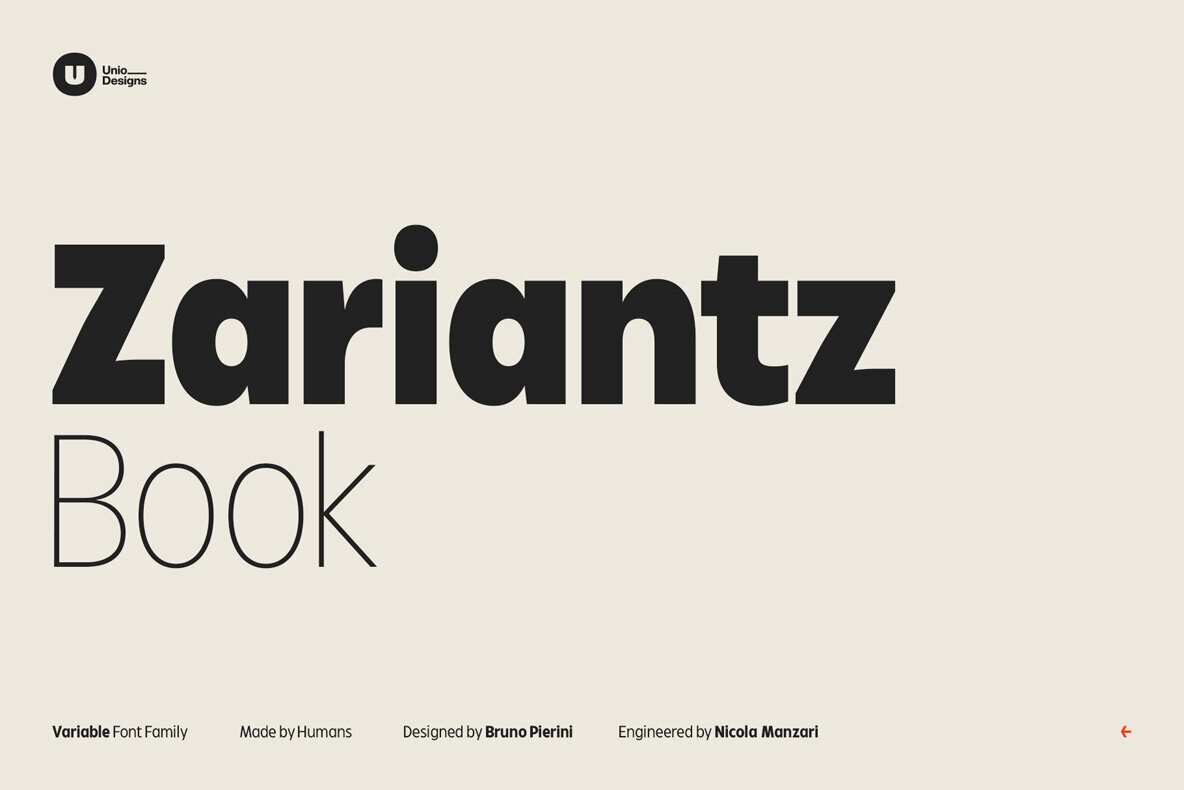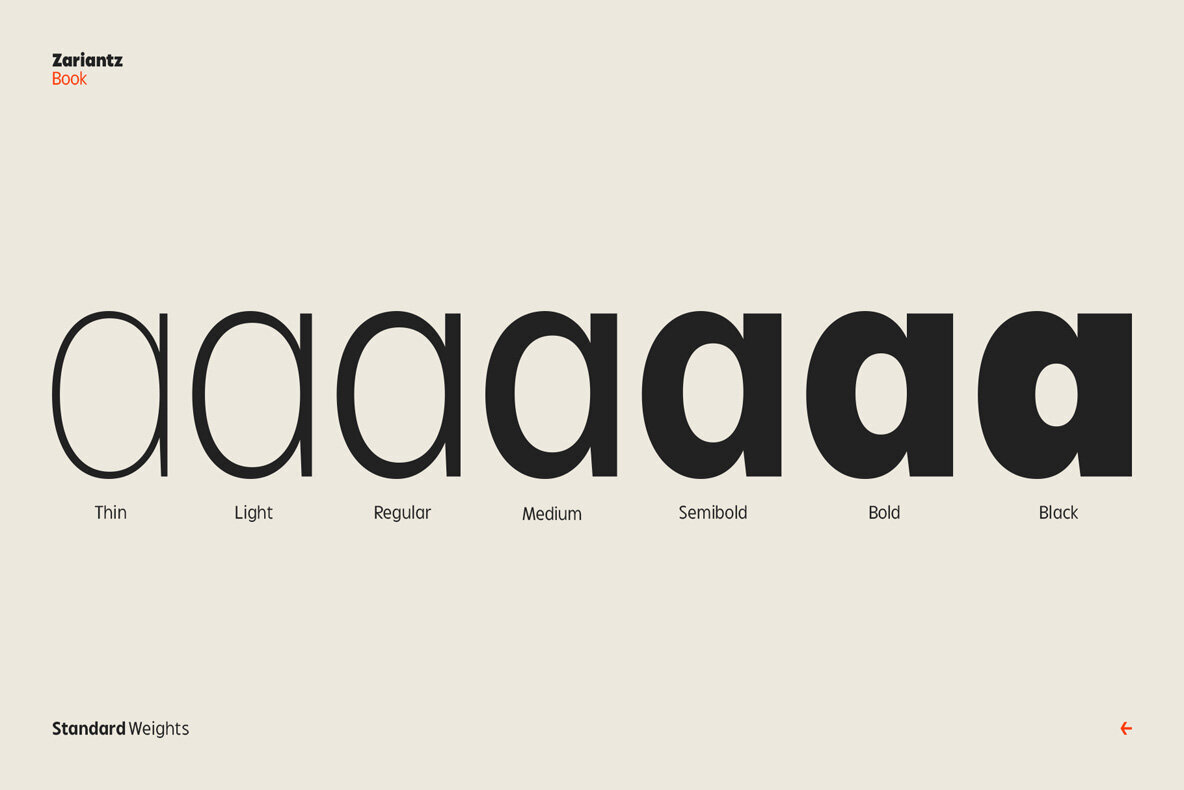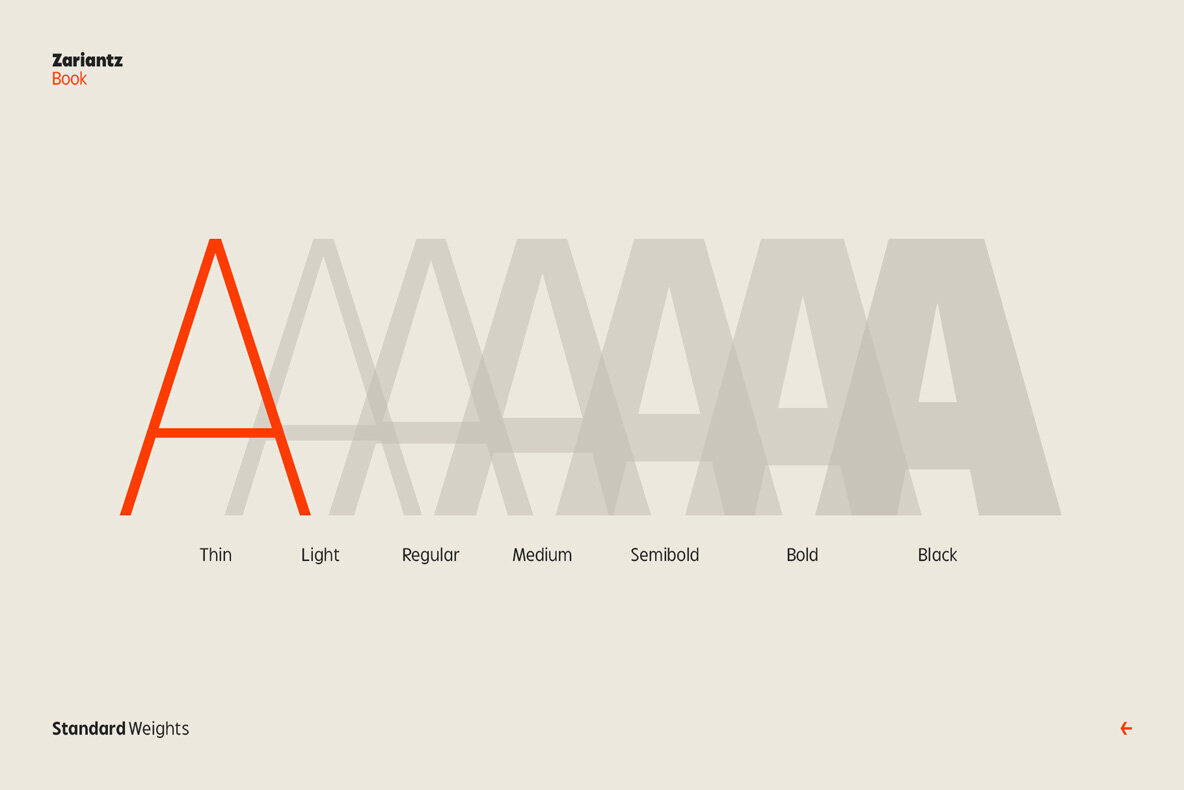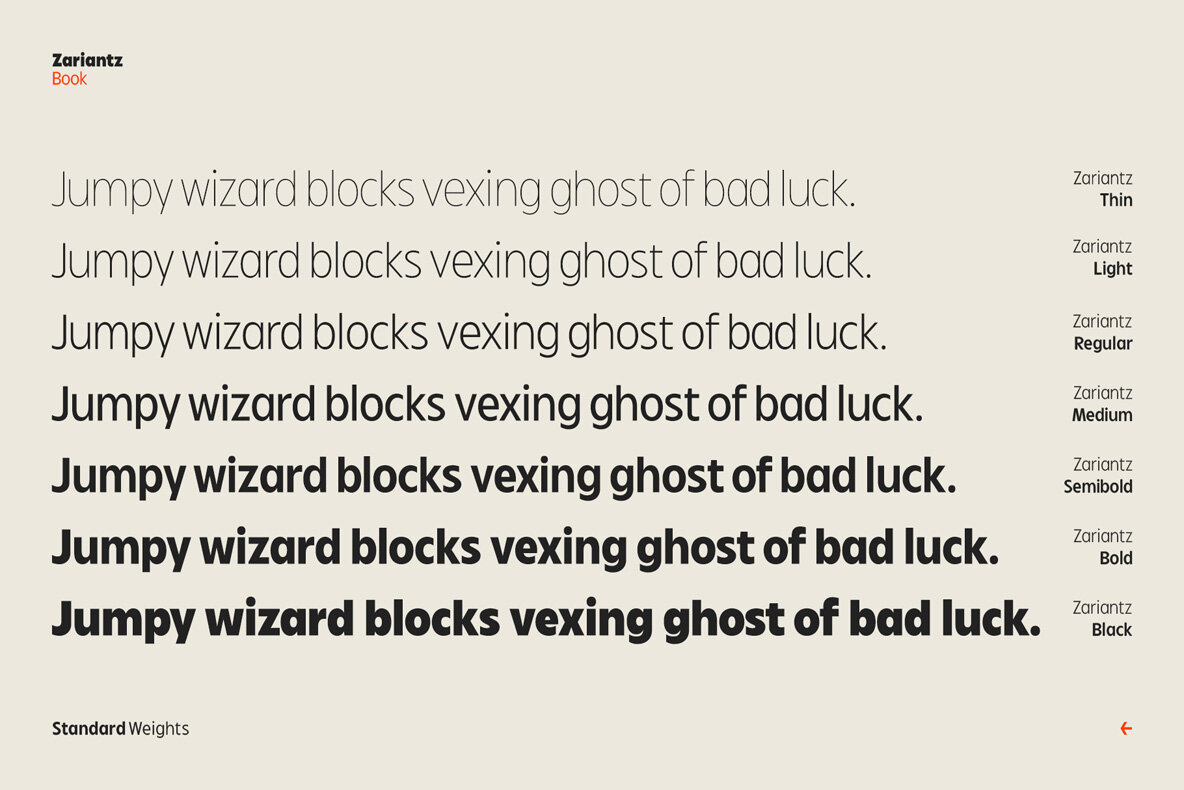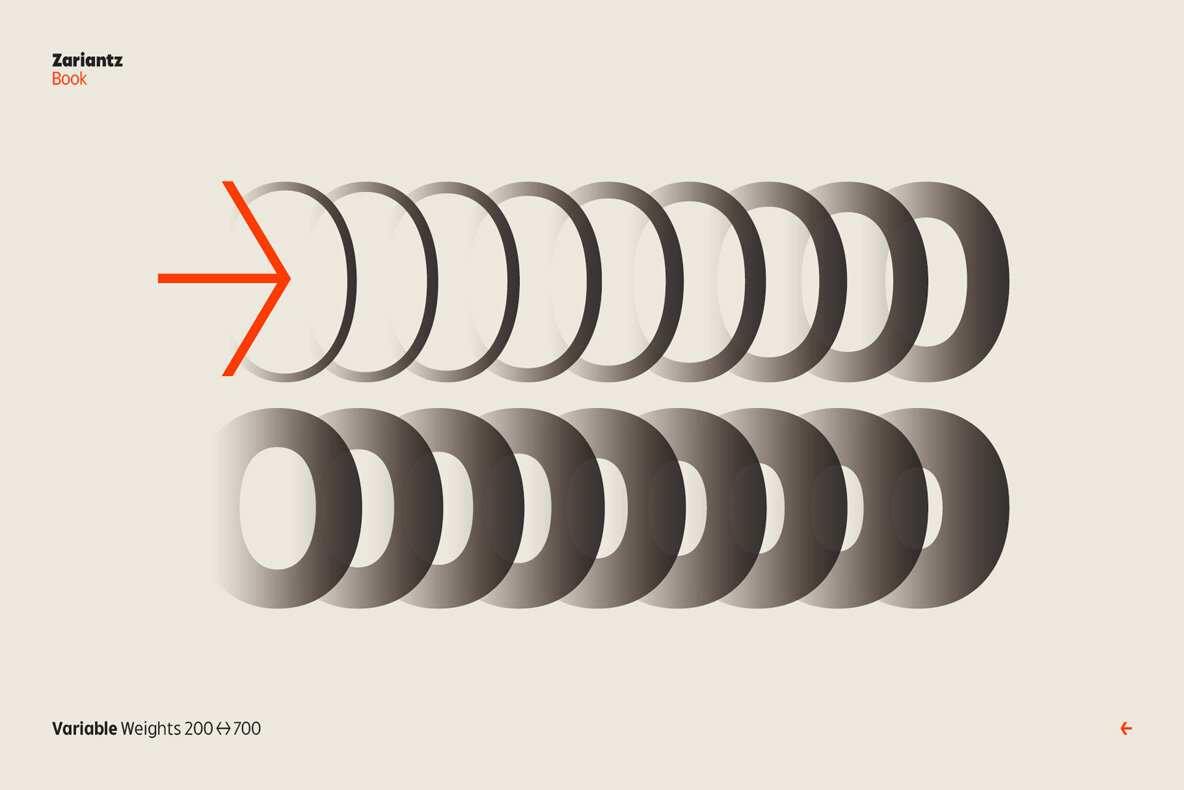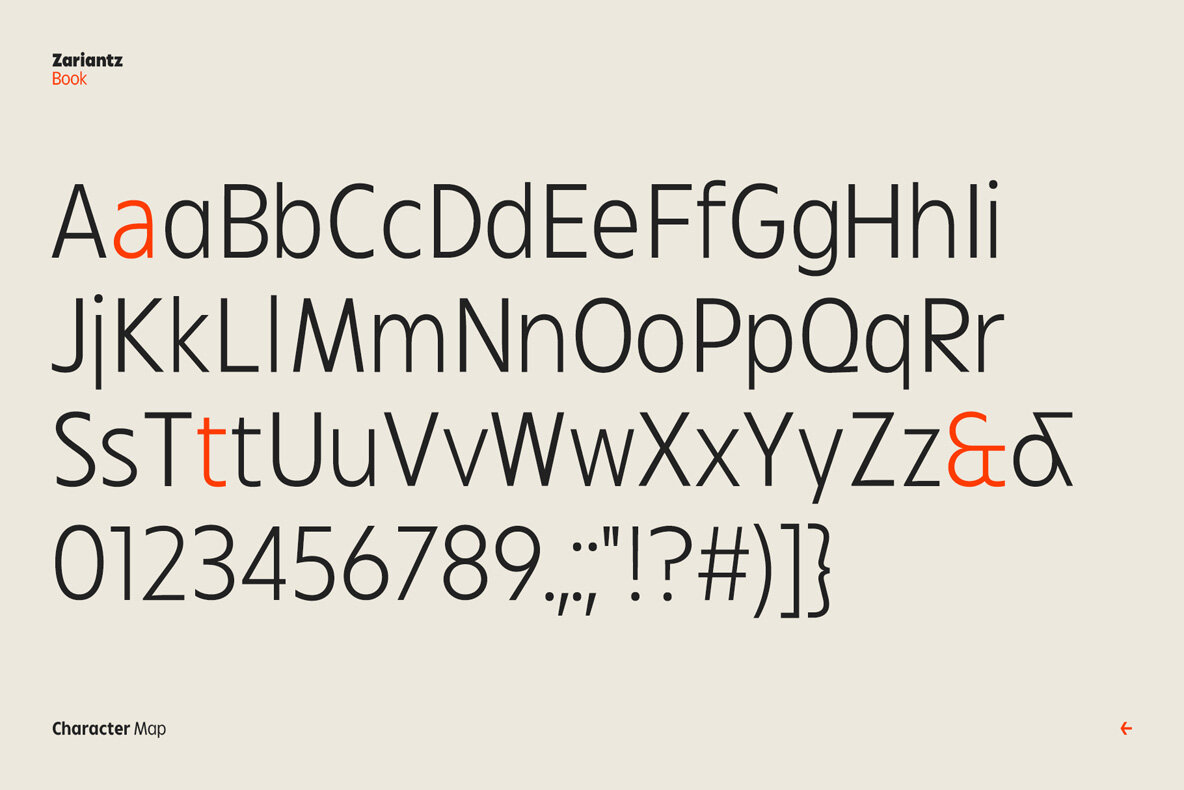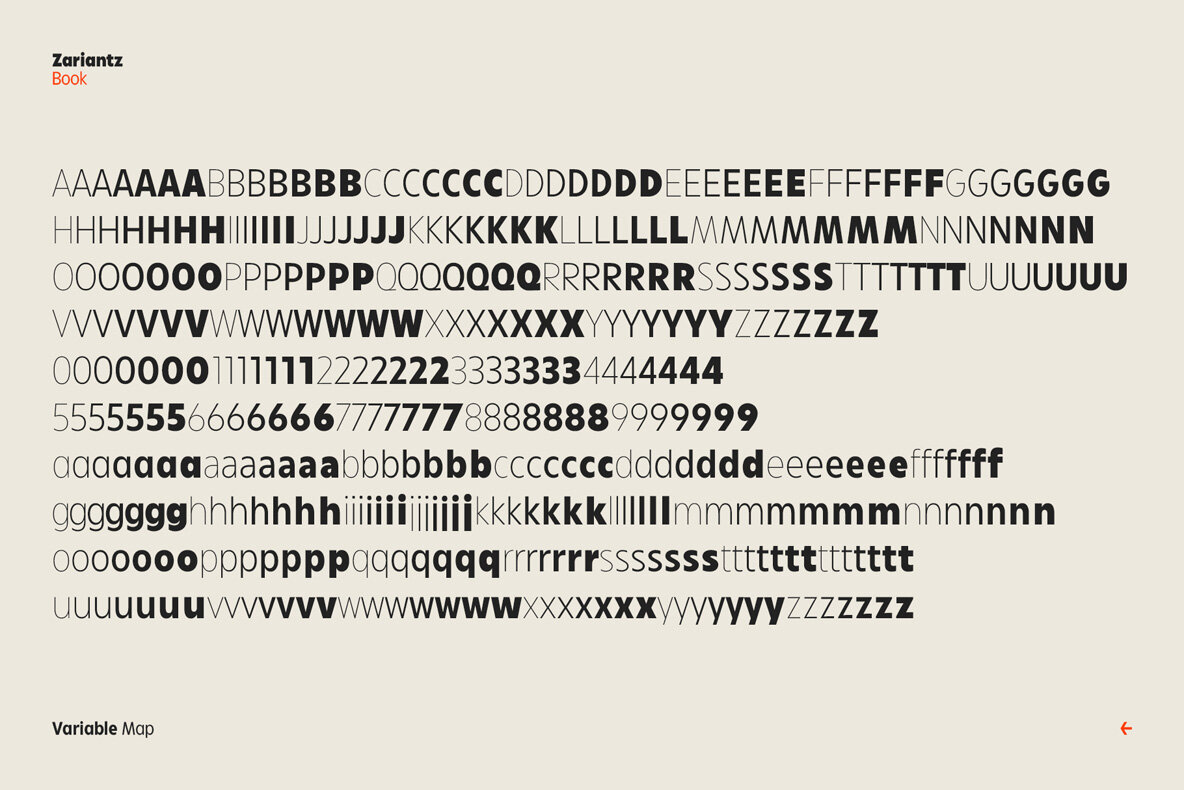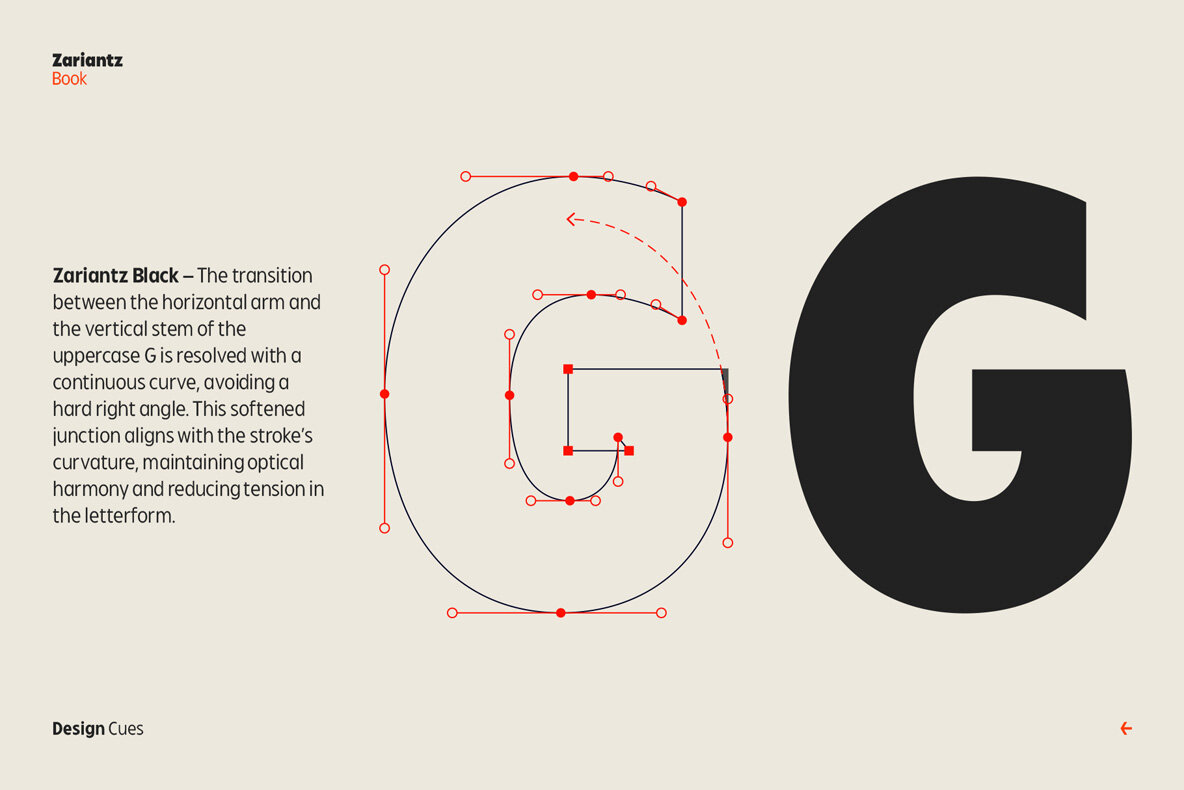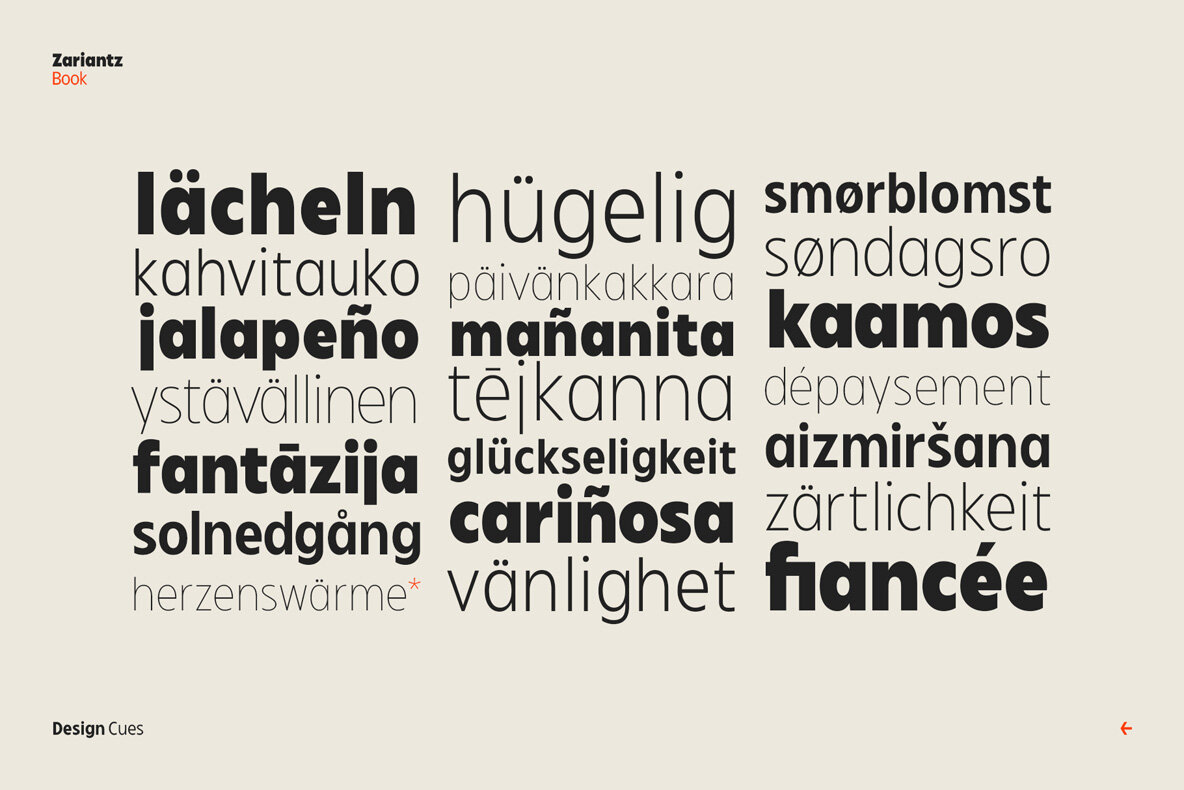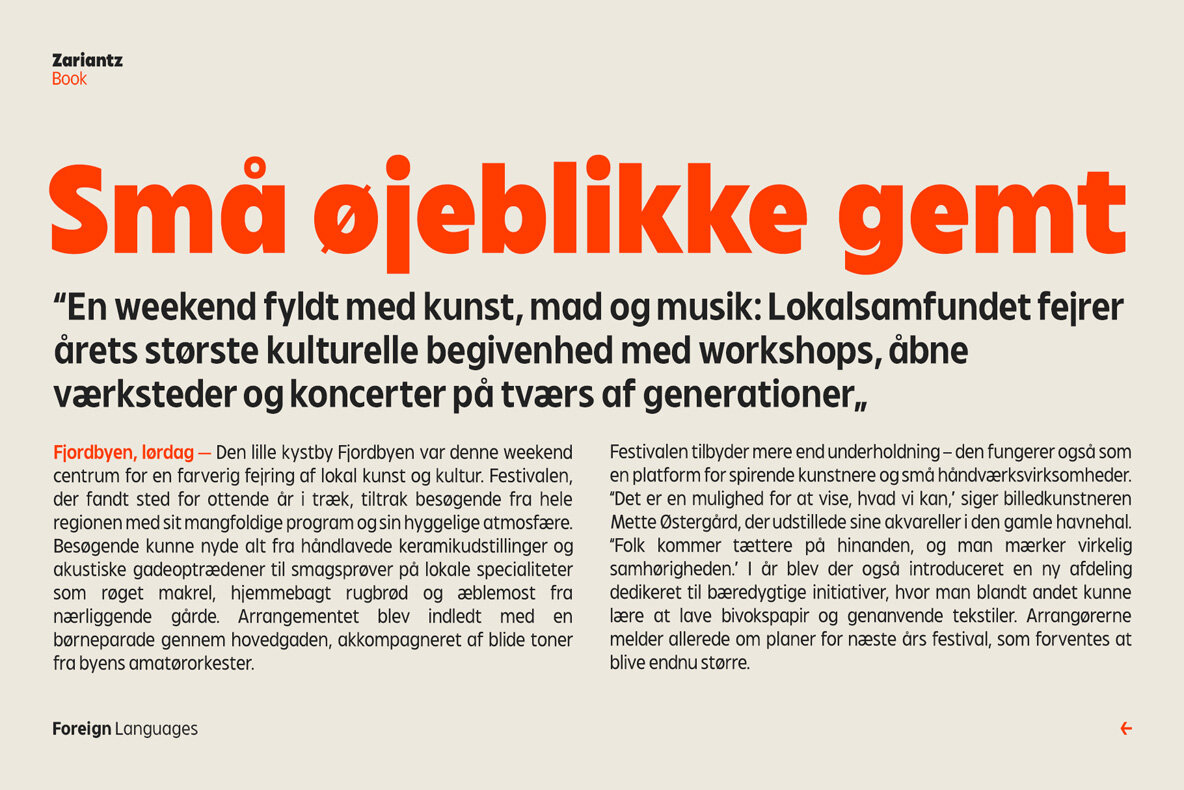
Zariantz Book Font
Zariantz Book stands as a versatile sans serif typeface, epitomizing clarity and precision with its expressive detailing. Anchored in a balanced 'book' weight, this font provides a clean, contemporary aesthetic ideal for both editorial and digital applications. Featuring an advanced OpenType toolkit, Zariantz Book offers old-style figures, case-sensitive forms, alternate glyphs, ligatures, and comprehensive multilingual support. Designers can effortlessly implement fractions, utilize numerals and denominators, and integrate unique multidirectional arrows that enhance layout complexity with a distinctive flair. Each feature is meticulously crafted to uphold typographic excellence, qualifying Zariantz Book as a professional-grade type system, adaptable for branding, publishing, and interface design with assured flexibility. This iteration extends the Zariantz family, initially introduced with Zariantz Grotesk Variable—a condensed sans serif inspired by the streets of Casamassima, Puglia. While Grotesk offered a narrow impact, Zariantz Book expands the typographic rhythm, combining balance, readability, and versatility in a humanist-driven design.Zariantz Book: Precision and Versatility in Sans Serif Design